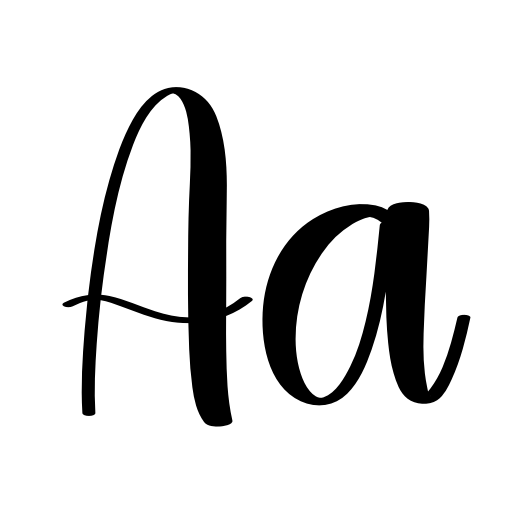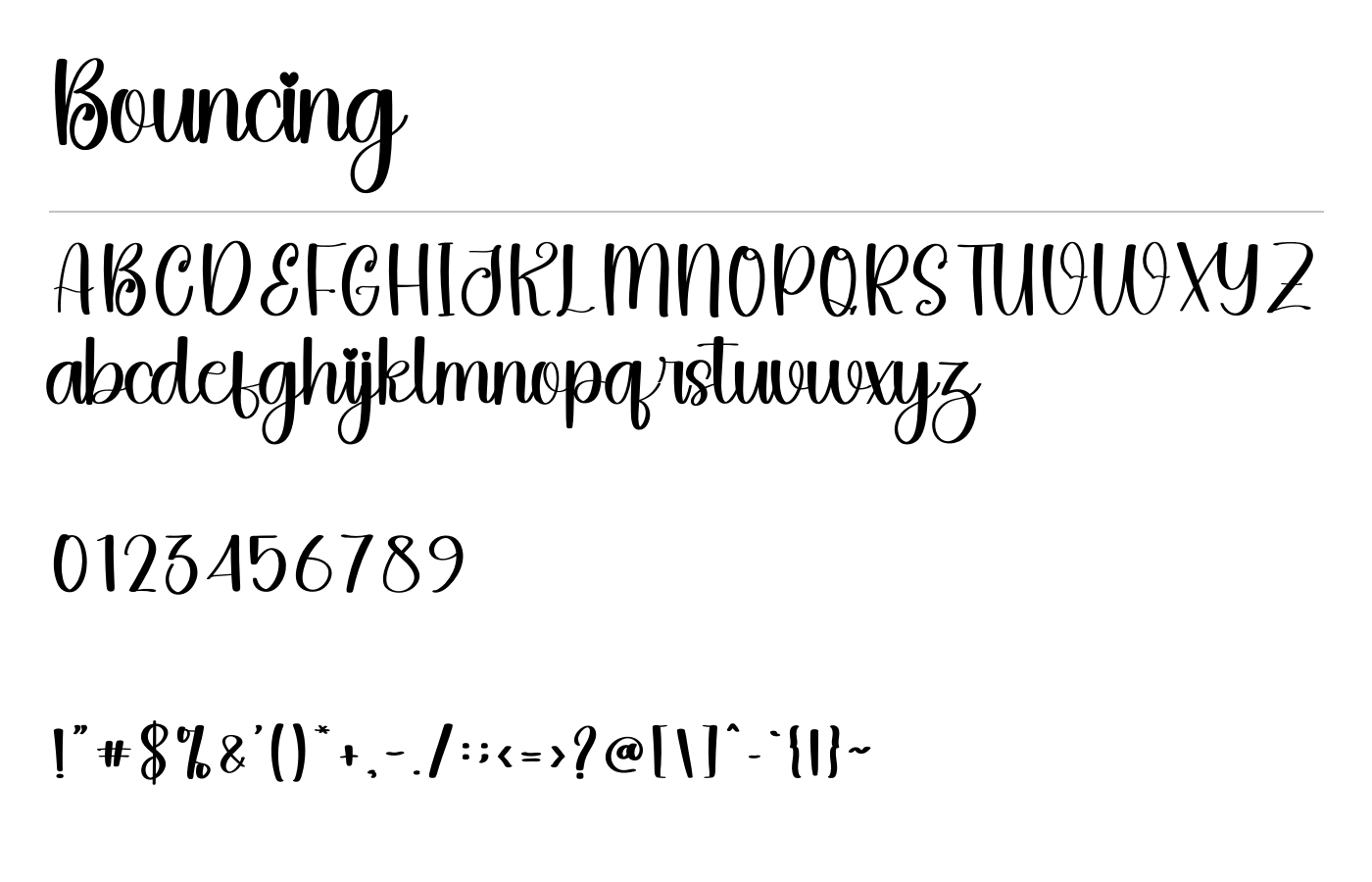
Bouncing Font is a playful and lively script typeface with a casual, hand-drawn feel. Its smooth, medium-weight strokes and whimsical letterforms with charming details like heart shapes create a friendly and approachable personality, making it ideal for creative branding, invitations, and fun headlines. This font works best where a cheerful and informal vibe is desired to engage and delight audiences.
Bouncing Font
About Bouncing Font